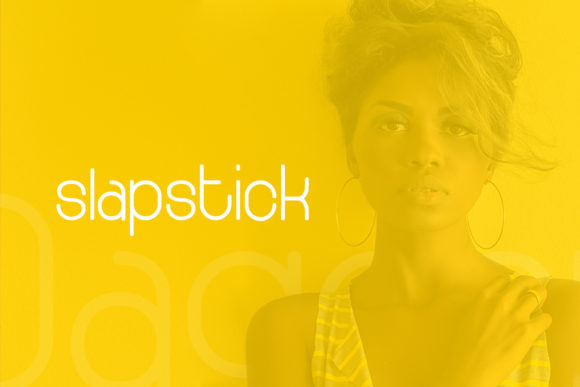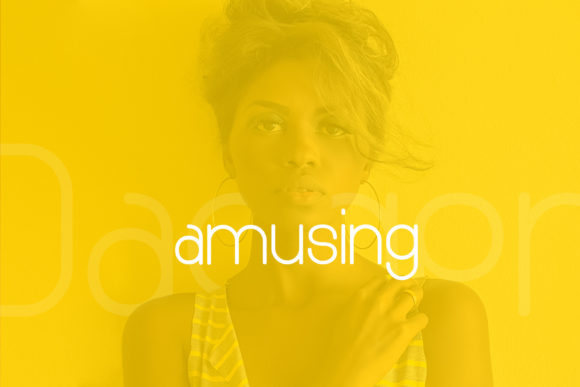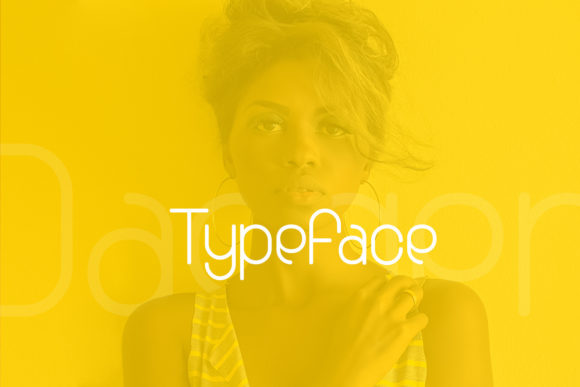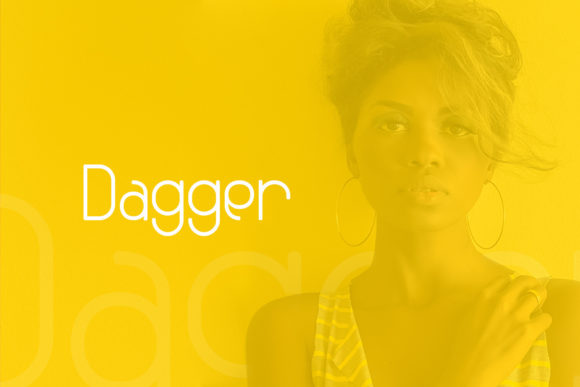
Dagger Font: The Ultimate Sans Serif for Designers and Crafters
Are you tired of using the same old fonts in your designs? Look no further than the Dagger Font, a thin and clean sans serif font that is sure to take your creative projects to the next level. With its sleek and modern design, Dagger Font is the perfect addition to any designer’s toolkit.
What is Dagger Font?
Dagger Font is a sans serif font that is characterized by its thin and clean lines. It is a versatile font that can be used in a wide range of projects, from digital designs to print materials. The font is designed to be highly legible, making it perfect for use in body text, headings, and titles.
Key Features of Dagger Font
- Thin and Clean Design: Dagger Font features a thin and clean design that is perfect for creating modern and sleek designs.
- Sans Serif: The font is a sans serif font, which means it doesn’t have any decorative lines or flourishes.
- Highly Legible: Dagger Font is designed to be highly legible, making it perfect for use in body text, headings, and titles.
- Versatile: The font can be used in a wide range of projects, from digital designs to print materials.
Why Use Dagger Font?
So, why should you use Dagger Font in your designs? Here are just a few reasons:
- Adds a Modern Touch: Dagger Font adds a modern touch to any design, making it perfect for designers who want to create sleek and contemporary designs.
- Improves Readability: The font’s high legibility makes it perfect for use in body text, headings, and titles, improving the overall readability of your designs.
- Versatile: Dagger Font can be used in a wide range of projects, from digital designs to print materials, making it a versatile addition to any designer’s toolkit.
How to Use Dagger Font
Using Dagger Font in your designs is easy. Here are a few tips:
- Pair it with Other Fonts: Dagger Font can be paired with other fonts to create a unique and interesting design.
- Use it in Headings and Titles: The font’s high legibility makes it perfect for use in headings and titles.
- Experiment with Different Sizes: Dagger Font can be used in a variety of sizes, from small body text to large headings.
Examples of Dagger Font in Use
Dagger Font can be used in a wide range of projects, from digital designs to print materials. Here are a few examples:
- Digital Designs: Dagger Font can be used in digital designs, such as website designs, social media graphics, and email marketing campaigns.
- Print Materials: The font can be used in print materials, such as brochures, flyers, and business cards.
- Logos and Branding: Dagger Font can be used in logos and branding materials, such as letterheads and packaging.
In conclusion, Dagger Font is a versatile and modern sans serif font that is perfect for designers and crafters. Its thin and clean design, high legibility, and versatility make it a great addition to any designer’s toolkit. Whether you’re working on a digital design, print material, or logo and branding project, Dagger Font is sure to help you create a unique and eye-catching design.